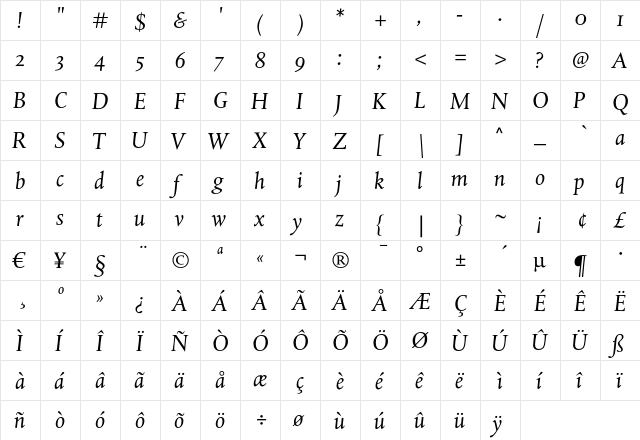
DTL Albertina ST Italic
Design Context for DTL Albertina Typeface
DTL Albertina offers clean, dependable letterforms without strong stylistic allegiance, making it a practical choice for designers who need flexibility. Its italic angle brings a sense of urgency and motion to the letterforms.
Pro Tip: Try DTL Albertina for annotation and caption copy alongside an upright companion — the contrast in angle creates a dynamic but ordered typographic system.